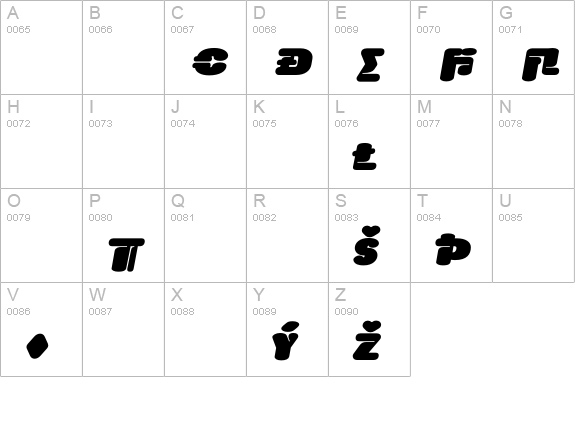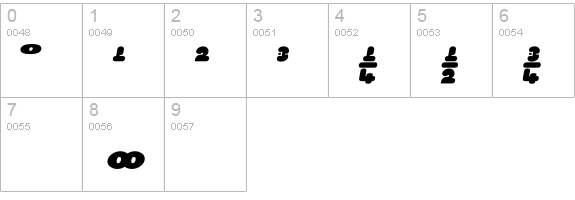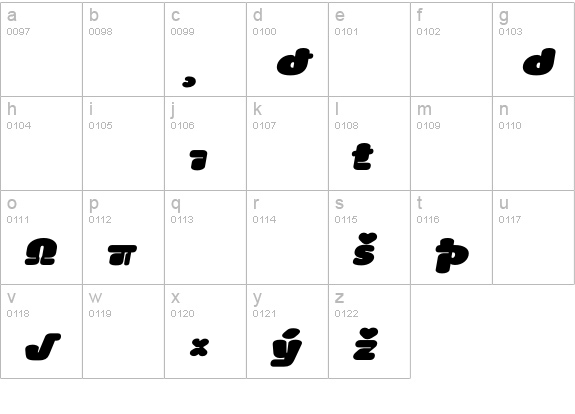
Blocker-DubLowSixExpert Font Details
Blocker-DubLowSixExpert is a sleek and modern font that exudes sophistication and style. With its clean lines and contemporary design, this font is perfect for a wide range of design projects, from logos to posters to website headers. The bold and striking characters of Blocker-DubLowSixExpert make a powerful statement and can easily capture the attention of your audience. What sets Blocker-DubLowSixExpert apart is that it is not only visually appealing but also highly versatile. Whether you're looking to create a professional business presentation or a trendy social media post, this font will elevate your design to the next level. Best of all, Blocker-DubLowSixExpert is completely free to download at FontsMarket.com. This means that you can access this high-quality font without any cost, making it a valuable addition to your font collection. Don't miss out on the opportunity to enhance your designs with Blocker-DubLowSixExpert – download it today and see the difference it can make!